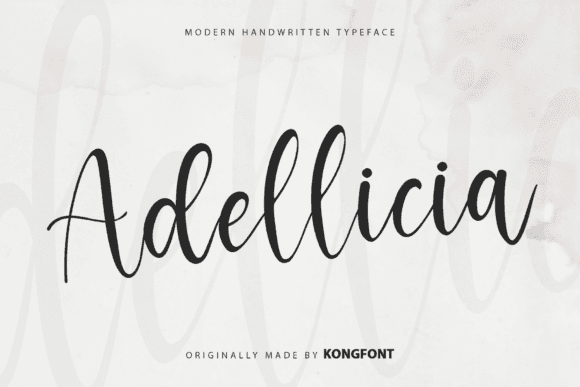
Adellicia Font for Cricut, Silhouette and Printable Designs
This is a smooth and stylish handwritten font made for crafters, designers, and DIY creators. Adellicia features flowing script strokes and delicate charm, making it ideal for use with cutting machines and printable artwork. With its elegant curves and distinctive flair, the Adellicia font can elevate various design projects, from invitations to branding materials. Additionally, it pairs beautifully with other typefaces, making it a versatile choice for any aesthetic. For those looking to make a lasting impression, the alanglah font for design projects is an excellent option that complements the graceful essence of Adellicia. Whether you’re creating personalized gifts or home décor, this font will bring a touch of elegance to all your projects. Additionally, the andolas font for cricut projects offers a similarly refined style, providing even more options for those looking to enhance their design aesthetics. Together, these fonts can transform your creative ideas into stunning realities, ensuring each piece stands out beautifully.
As a font entity, Adellicia enhances design projects with elegance and personality. It's tailored for vinyl decals, wedding crafts, and personalized gifts, offering clean lines for precision cutting and professional-looking results.
Whether you're designing printables or cutting intricate text designs, Adellicia brings beauty and consistency to your creative workflow.
- Graceful handwritten curves and flow
- Elegant enough for weddings, casual enough for everyday
Q: What kind of font is Adellicia?
A: Adellicia is a handwritten script font with elegant, flowing curves, ideal for crafting and printable projects.
| Font Style | Elegant handwritten script | Formal cursive script | Casual marker handwriting |